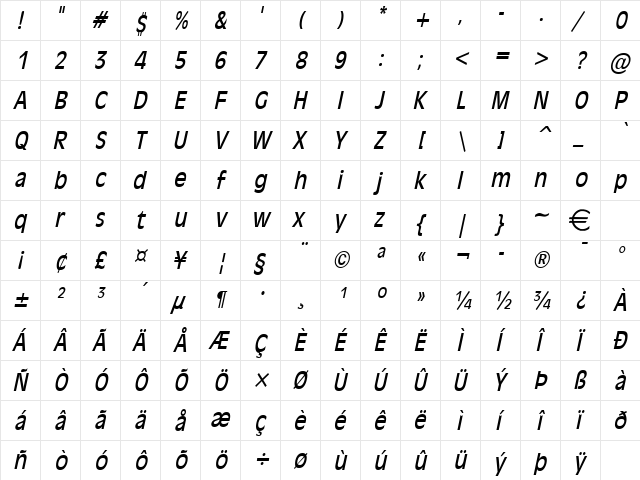
Antiqua101Condensed Italic Font Preview
Design Context for Antiqua101Condensed Typeface
Antiqua101Condensed takes a measured approach to typography — its balanced proportions and neutral character make it a reliable workhorse for both digital and print work. The slanted form adds forward momentum and visual energy. The condensed width makes it efficient for tight spaces without sacrificing legibility.
Pro Tip: Try Antiqua101Condensed for annotation and caption copy alongside an upright companion — the contrast in angle creates a dynamic but ordered typographic system.